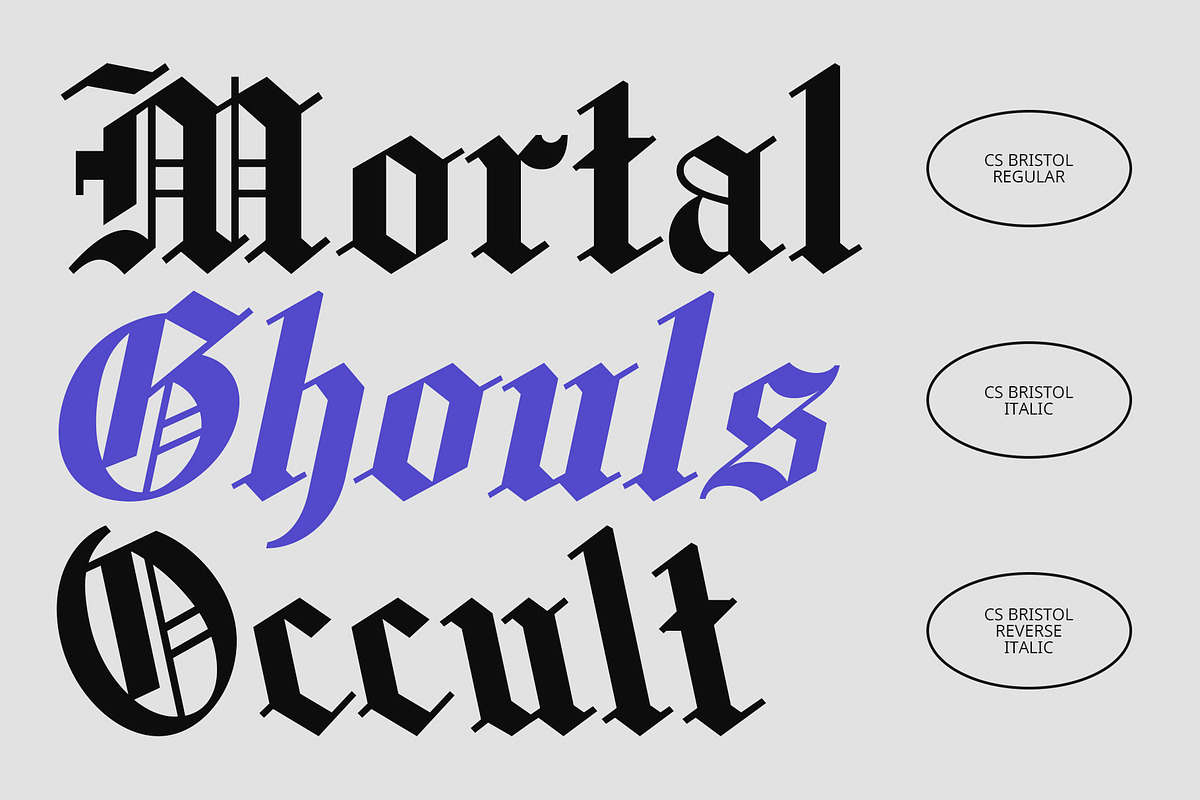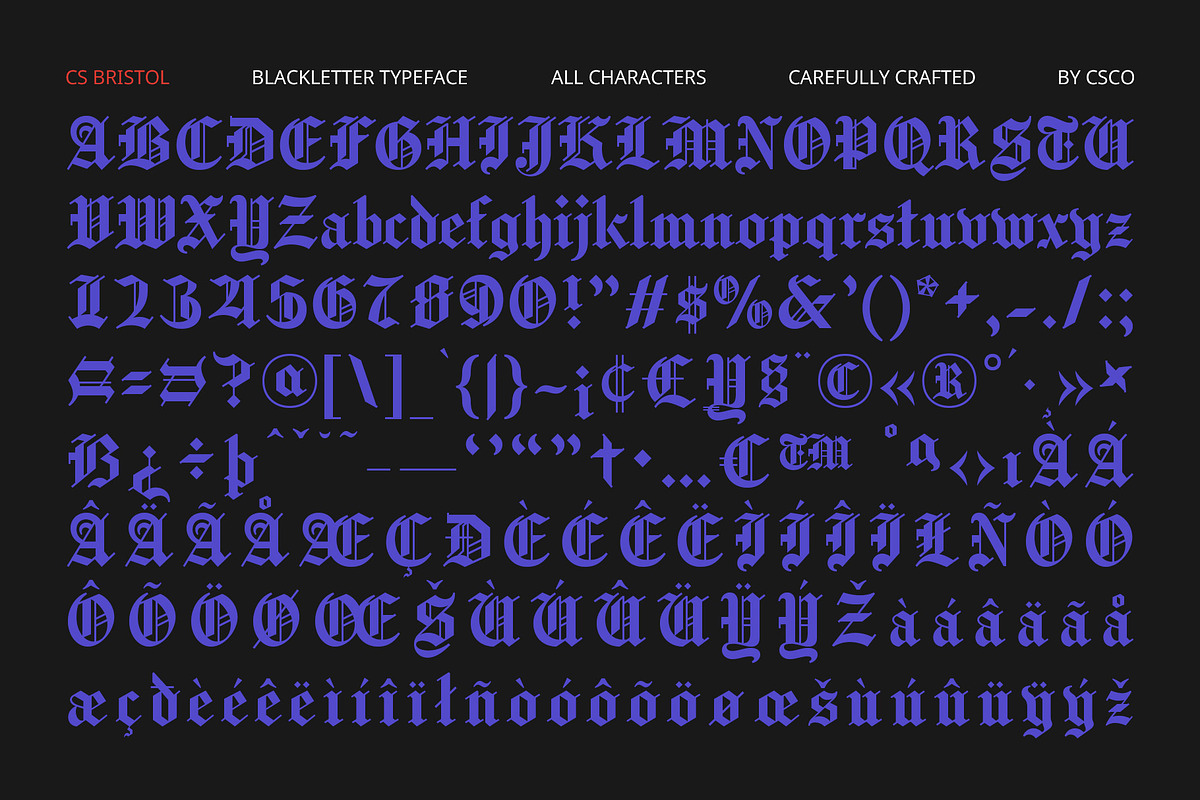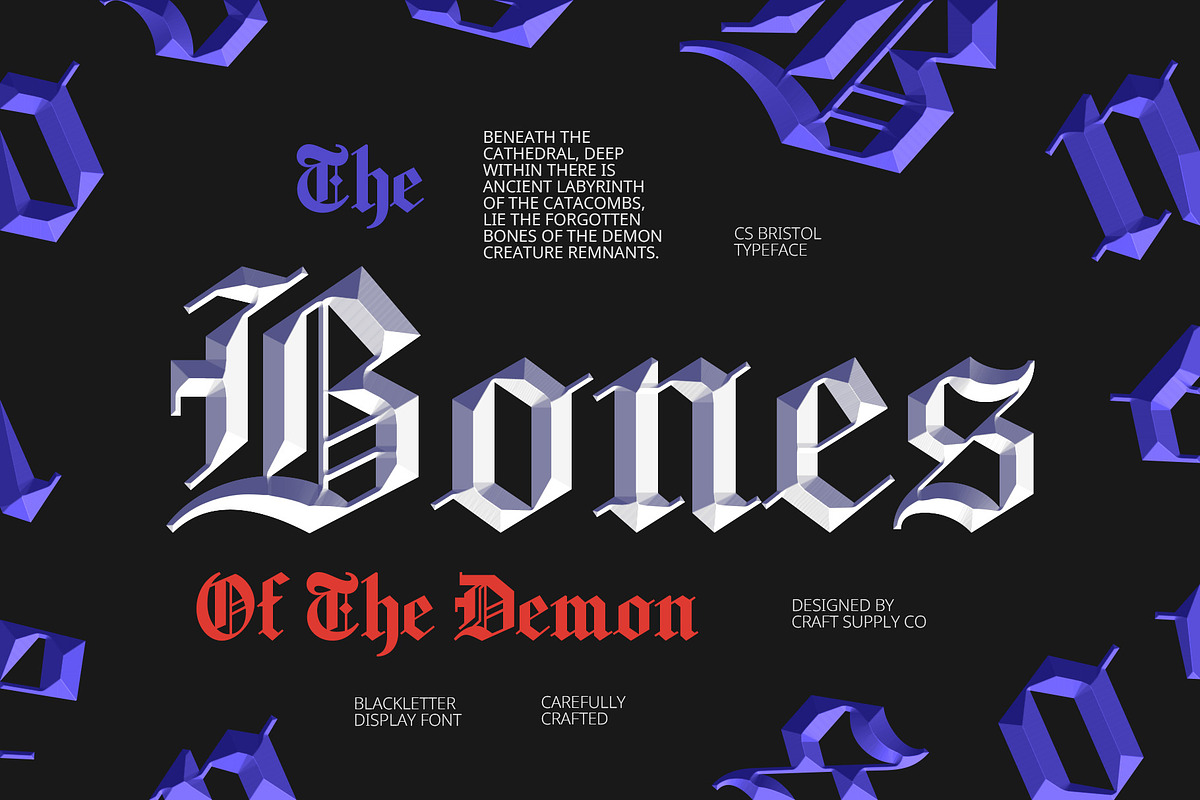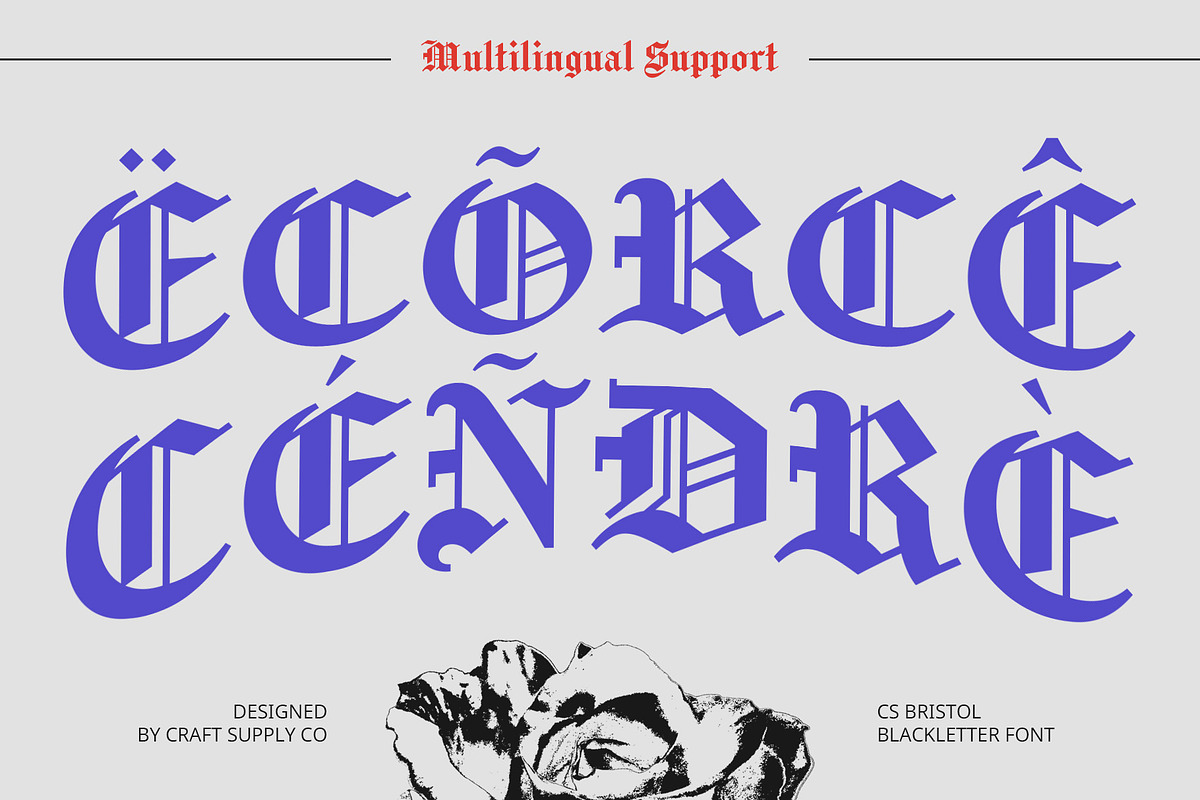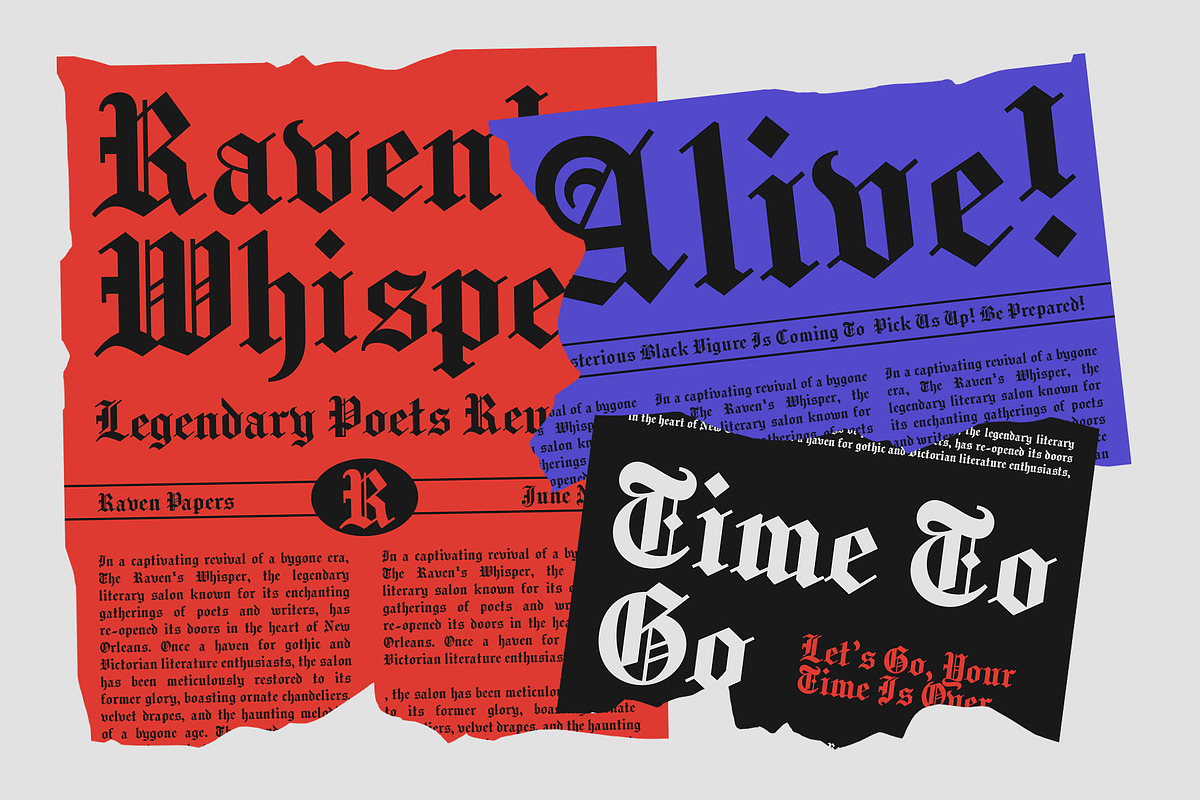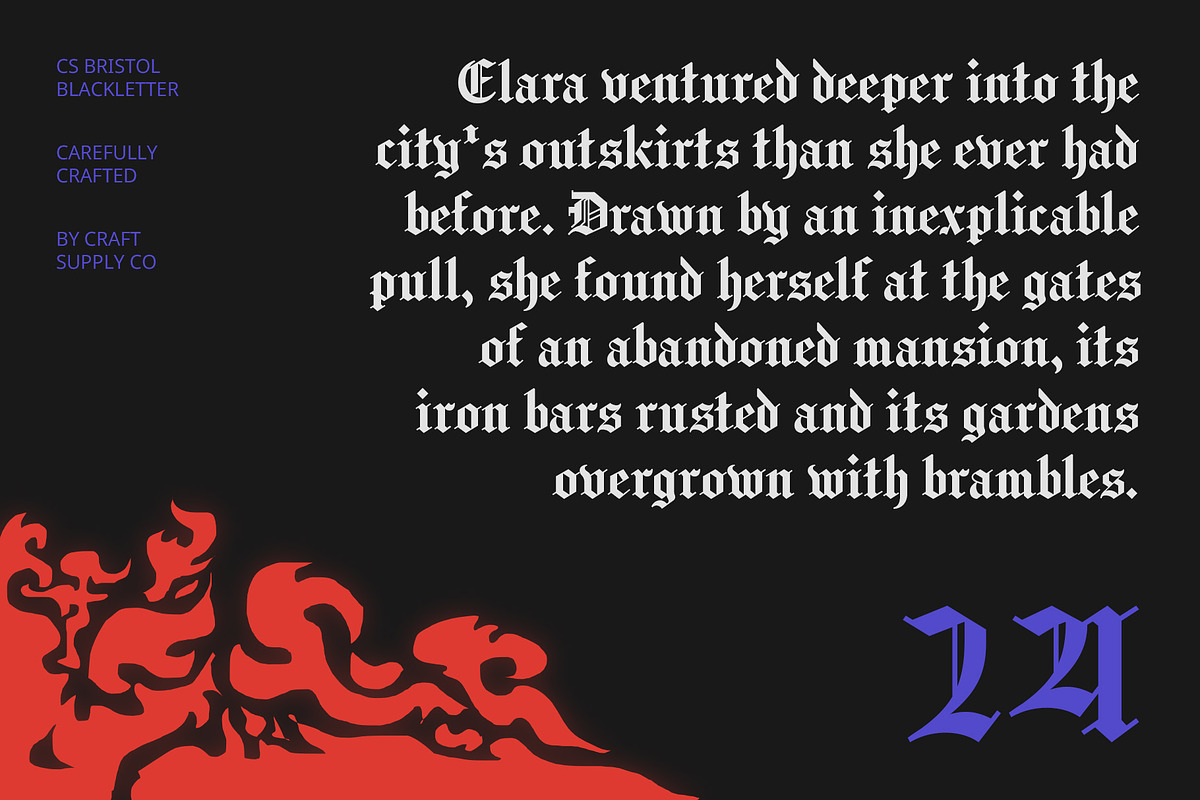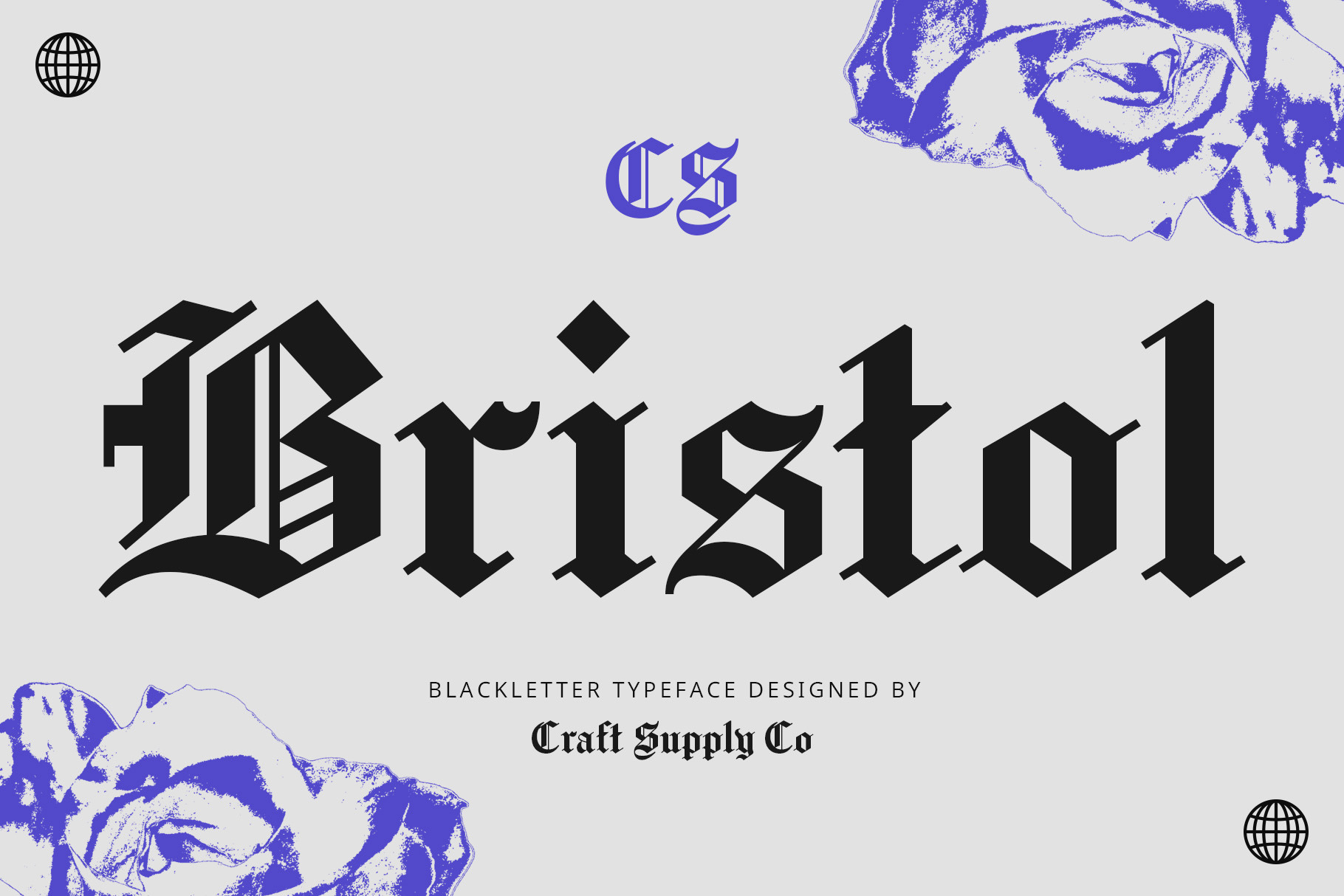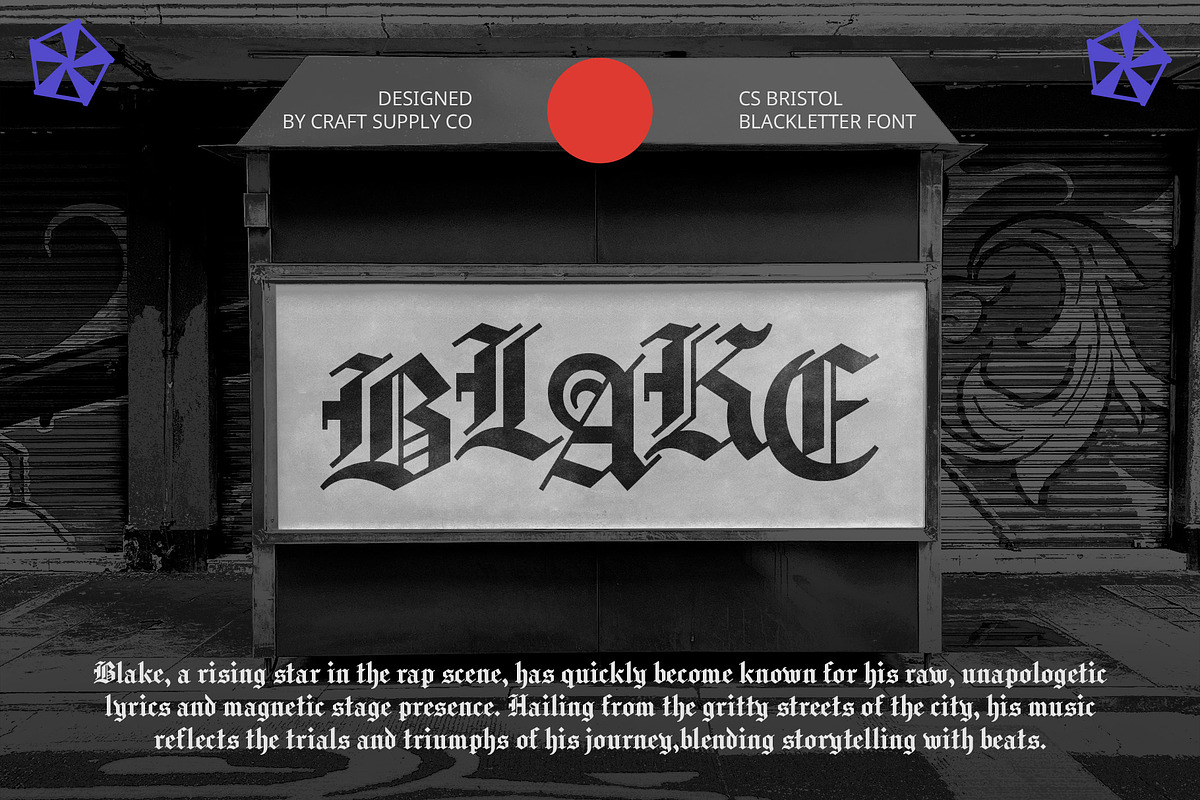
CS Bristol – Blackletter Font
CS Bristol – Blackletter Font: Classic Elegance with Historical Prestige
Old English Blackletter Display Serif CS Bristol – Blackletter Font is a distinguished display serif typeface that embraces the classic Old English Blackletter style. Combining traditional English writing with ornate and historical characteristics, this font features sharp, bold letters that exude both elegance and authority.
Ornate and Bold Design Characterized by its intricate details and commanding presence, CS Bristol’s design reflects the prestige and tradition of historical Blackletter typography. Its ornate and bold letterforms make it ideal for projects that require a touch of sophistication and formality.
Perfect for Formal and Historical Applications Whether for formal invitations, legal documents, or designs that demand a historical or formal touch, CS Bristol adds a sense of grandeur and quality. Its classic and authoritative appearance highlights elegance and is perfectly suited for print materials that aim to project an image of prestige and tradition.
Versatile for Elegant and Prestigious Projects CS Bristol offers versatility for a range of elegant and formal applications. Its Old English Blackletter style ensures that your designs stand out with a rich historical flair, making it a perfect choice for any project that seeks to emphasize quality and sophistication.
- CS Bristol Regular
- CS Bristol Italic
- CS Bristol Reverse Italic